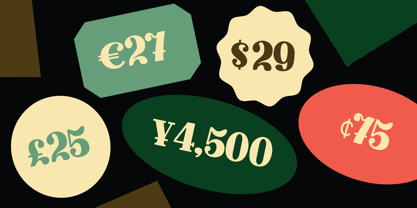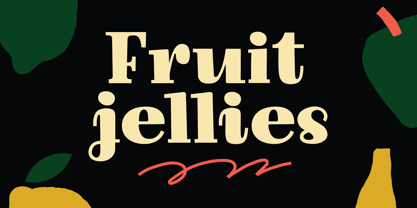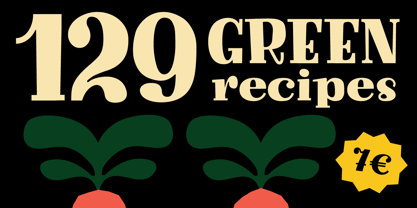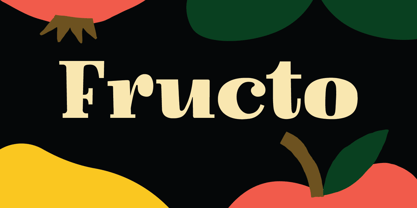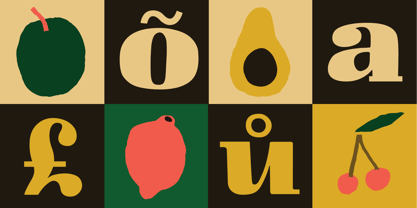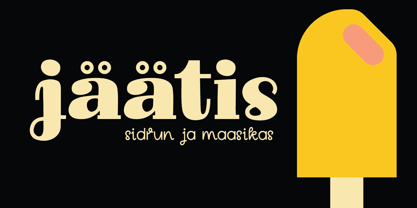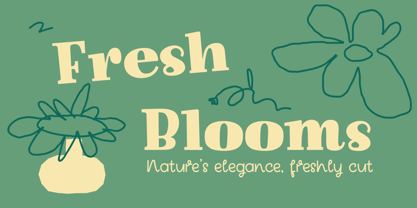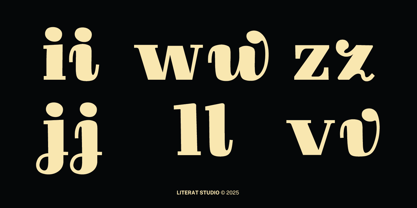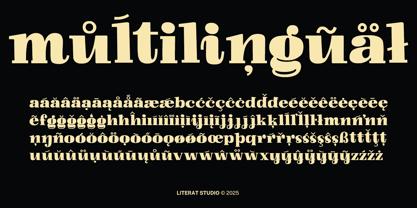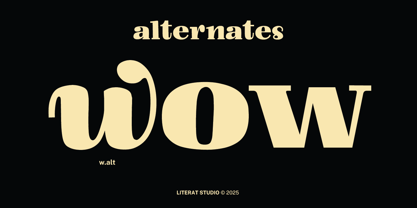
Fructo
The Fructo Font Family was designed by Ada Napiórkowski and published by Literat Studio. Fructo contains 2 styles and family package options. More about this family
Fructo is a playful typographic ode to the charm of Polish mid-century graphic design. With its fresh, fruity curves and striking presence, Fructo is ideal for making a statement in branding, book layouts, posters, or any design that needs a flavorful twist.
Literat is a solo project that began as a hobby. I've been designing fonts since 2015. Type design is a natural extension of my illustration practice, a space where I explore personality, rhythm, and charm through letterforms. My fonts are playful, warm, and often a little bit childish. Originally from Poland, I am currently based in Tallinn, Estonia.